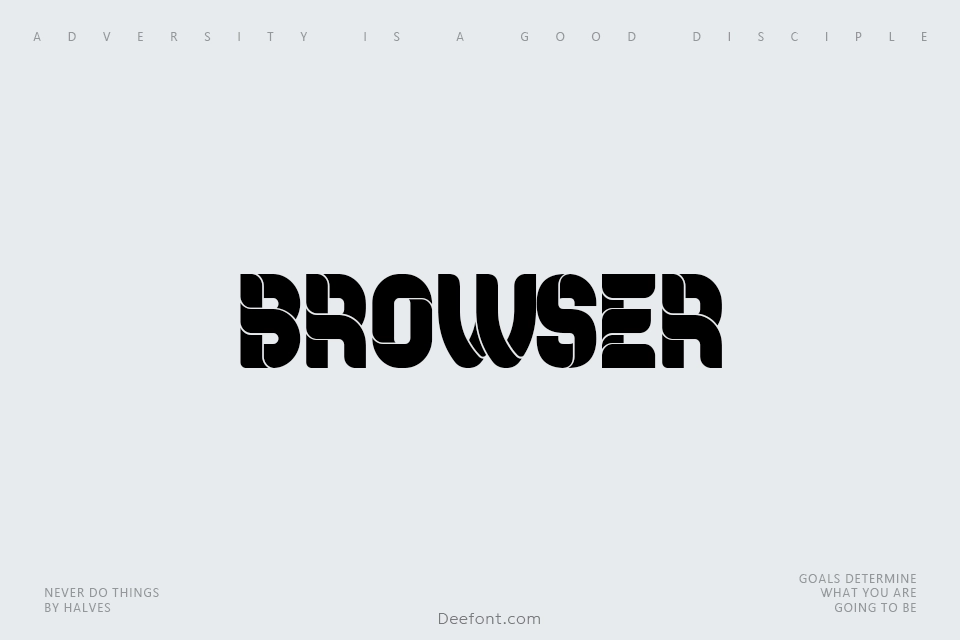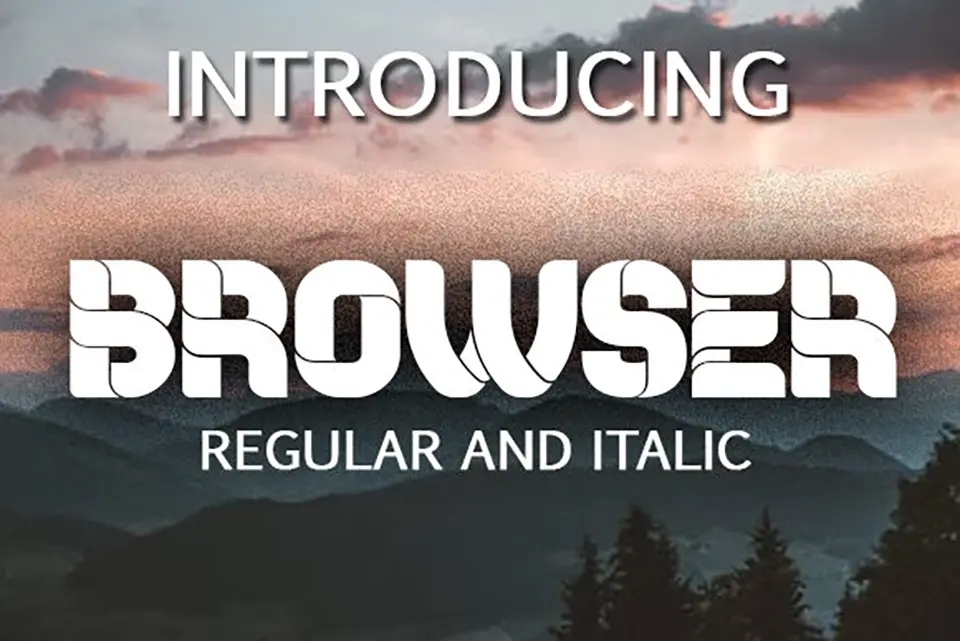
Browser Font
Browser Font is a versatile and contemporary display typeface created by Vladimir Nikolic, designed to deliver modern elegance for creative projects. With its distinctive character and refined aesthetic, this font excels at capturing attention in headlines, posters, and promotional materials. The typeface comes in Regular and Italic variants, offering flexibility for various design applications. Its clean letterforms and balanced proportions make it suitable for both digital and print media, combining functionality with visual appeal to elevate your typography and bring personality to your creative endeavors.